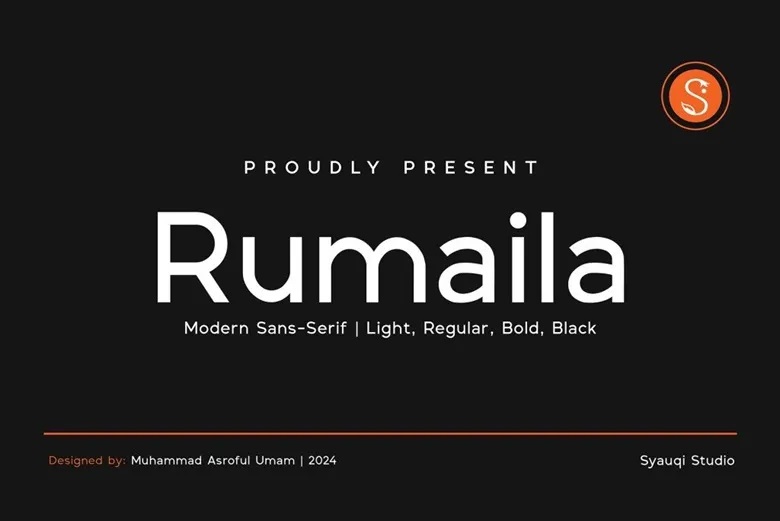
Rumaila Font
Rumaila is a new modern sans-serif typeface which reflects the patterns of orderliness and polish. Being a set of sleek and harmonious shapes, Rumaila fits into brand identity, digital environments, and print materials.
Rumaila Sans Serif Font